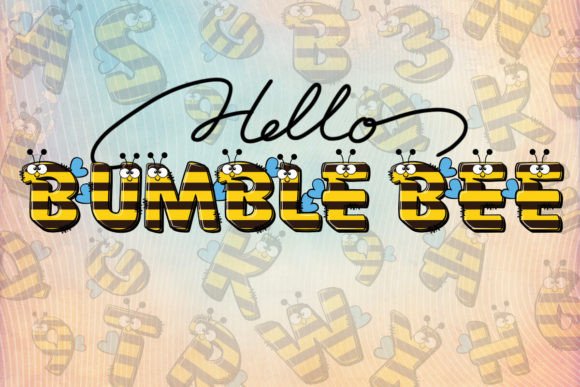
Introducing Bumble Bee Font: The Sweetest Addition to Your Design Toolbox
Have you ever been in the middle of a design project, and suddenly, you’re stuck on finding the perfect font? I recall a recent experience where I was working on a back-to-school themed craft project for a client, and I just couldn’t find a font that captured the playful, whimsical vibe I was going for. That’s when I stumbled upon the Bumble Bee Font, and let me tell you, it was love at first sight! 😍
The Charm of Bumble Bee Font
Bumble Bee Font is a delightful typeface that embodies the innocence and simplicity of back-to-school charm. Its design subtly intertwines elements of humor and cuteness, making it perfect for creative projects that require a touch of whimsy. This charming font exudes an irresistible charm that’s sure to make your work buzz with creativity! 🐝
So, what makes Bumble Bee Font so special? Here are some things I love about it:
• ✨ Unique and playful design that’s sure to grab attention
• ✅ Easy to read and understand, even in smaller font sizes
• 💕 Perfect for back-to-school themed projects, but also versatile enough for other creative endeavors
Of course, no font is perfect, and Bumble Bee Font has a few small quirks:
• 🤔 Limited character set, which may not be suitable for projects requiring a wide range of special characters
• ⚠️ May not be the best choice for formal or professional designs, as it’s more playful and whimsical in nature
The Backstory Behind Bumble Bee Font
Bumble Bee Font was designed with the intention of capturing the innocence and playfulness of childhood. The designer, inspired by the busy and social nature of honey bees, aimed to create a font that’s both fun and functional. The result is a charming typeface that’s perfect for creative projects that require a touch of whimsy and delight.
What is Bumble Bee Font? Bumble Bee Font is a playful and charming typeface that’s perfect for creative projects that require a touch of whimsy and delight.